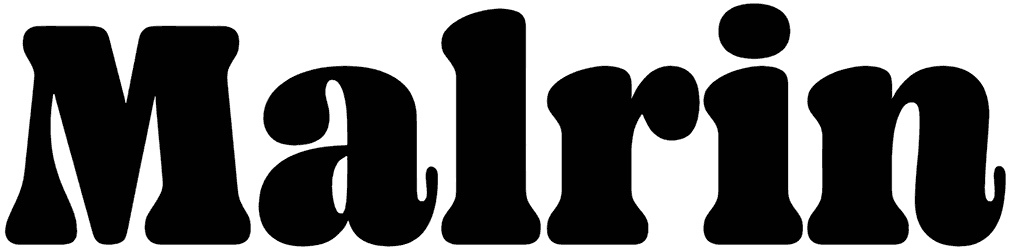
Malrin Font
Let your words experience the subtle charm of Malrin as a retro font, and you’ll be forever hooked afterwards. That’s a great opportunity for you to get creative in your lettering and give your audience all the reasons they need to remember you fondly.
So don’t be alarmed anymore if someone asks you for a sundress or other apparel label, a poster for summer parties or classic movies, or things like that requiring a sweet swash font with round edges.